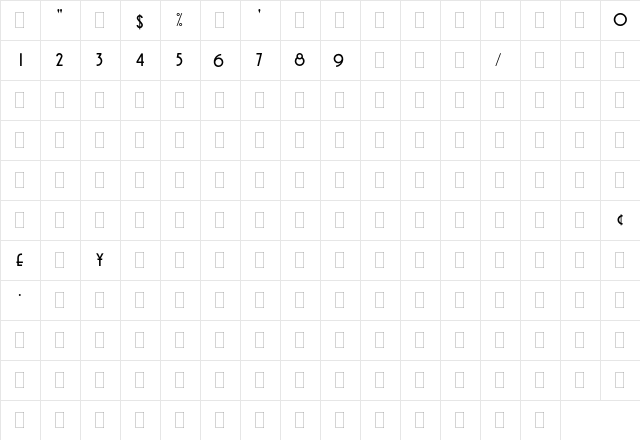
Avenida Alts Regular
Design Context for Avenida Alts Typeface
Avenida Alts is a composed and adaptable typeface that performs quietly and consistently across a wide range of design contexts.